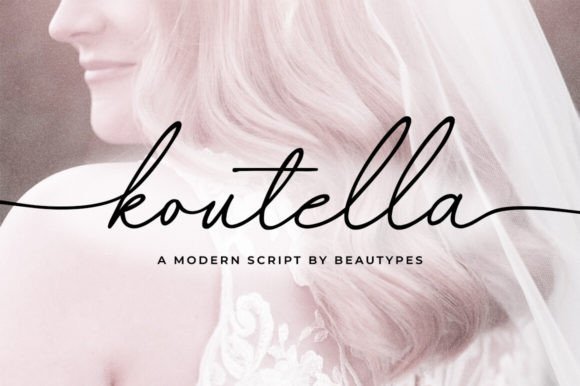
Embark on a typographic odyssey with Koutella, a script font family that captures the essence of clean and tidy handwriting. Its graceful curves and flowing lines evoke a sense of sophistication and elegance, making it an ideal choice for branding, logos, invitations, greeting cards, headlines, and more.
Koutella's beauty lies in its captivating beginning and ending lowercase swashes, adding a touch of whimsy and charm to your designs. Each letter dances across the page, connecting seamlessly to create a harmonious visual rhythm. This font family exudes personality and character, ensuring your designs stand out from the crowd.
With Koutella, you have the power to transform your creative visions into reality. Its versatility knows no bounds, allowing you to create designs that resonate with your brand's unique identity. Whether you're crafting a medical website, designing a captivating logo, or creating heartfelt invitations, Koutella is your trusted companion on your typographic journey.
Experience the allure of Koutella today and unlock a world of creative possibilities. This font family will elevate your designs, captivate your audience, and leave a lasting impression. Embrace the beauty of handwritten elegance and let Koutella guide you towards typographic excellence.